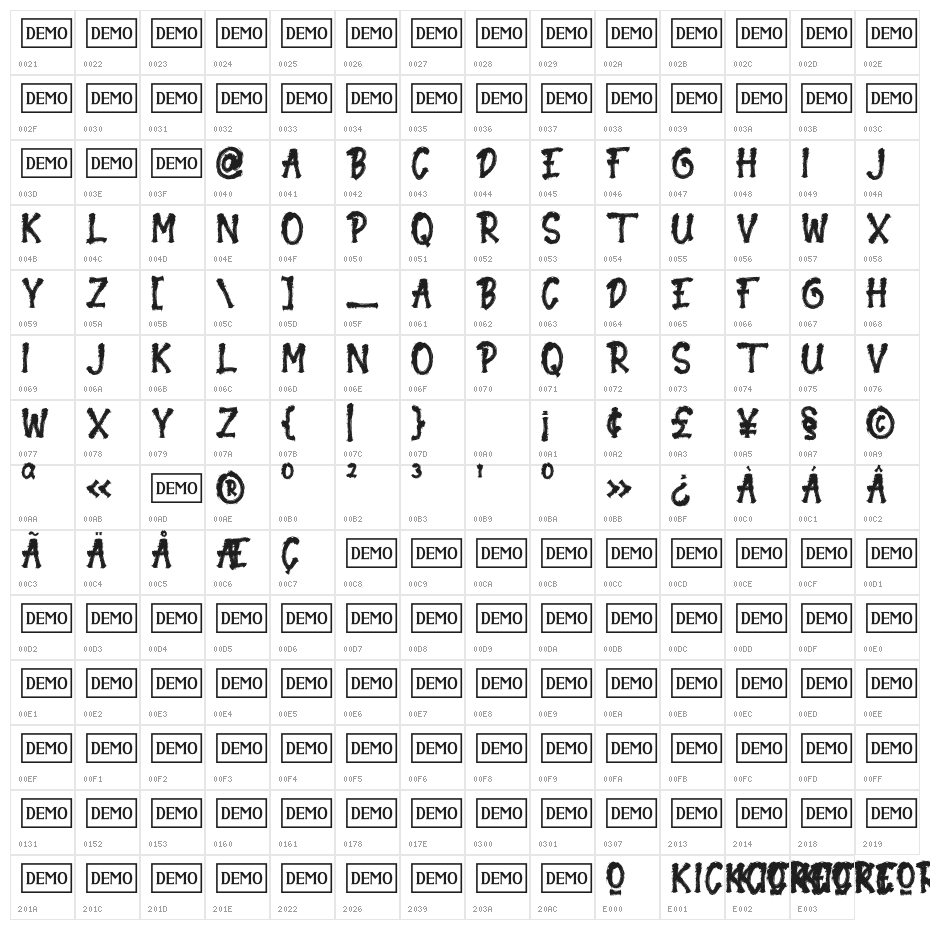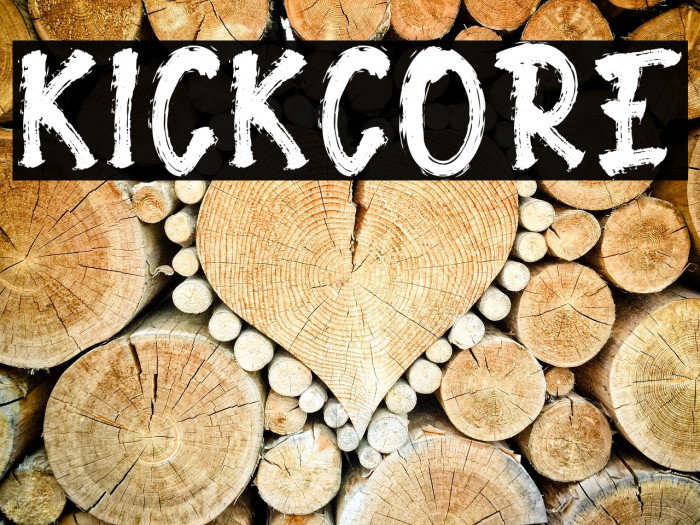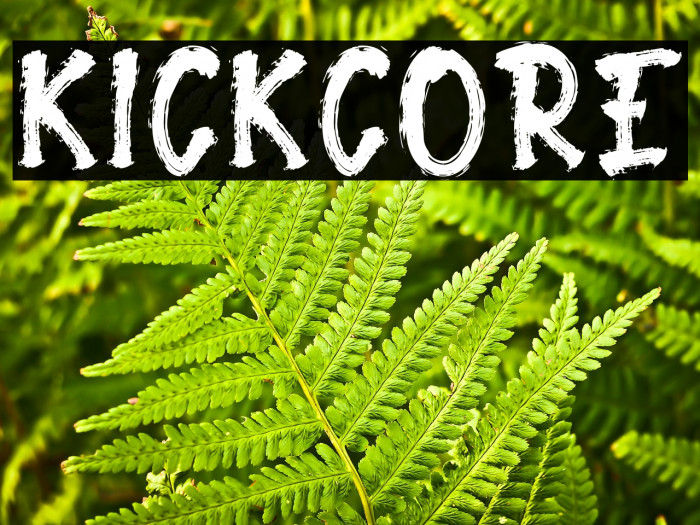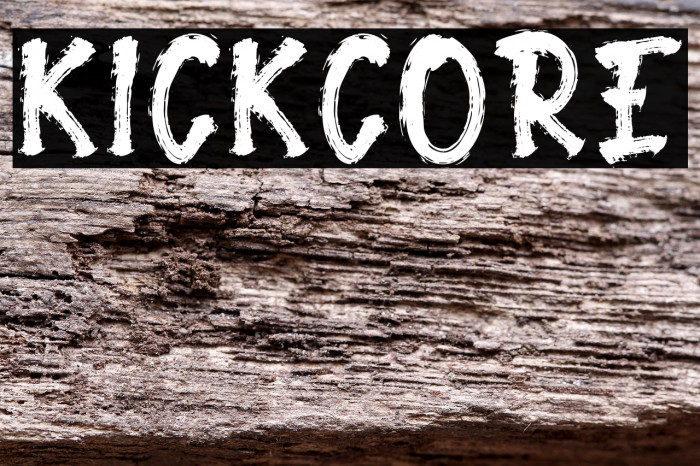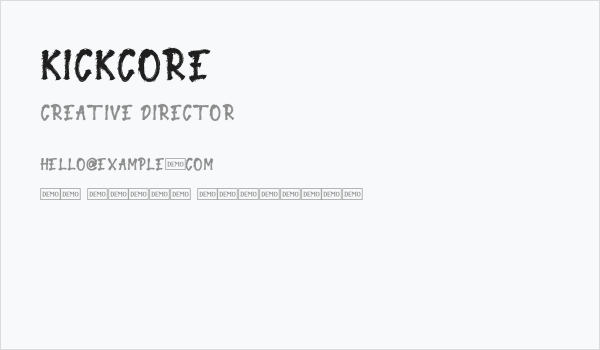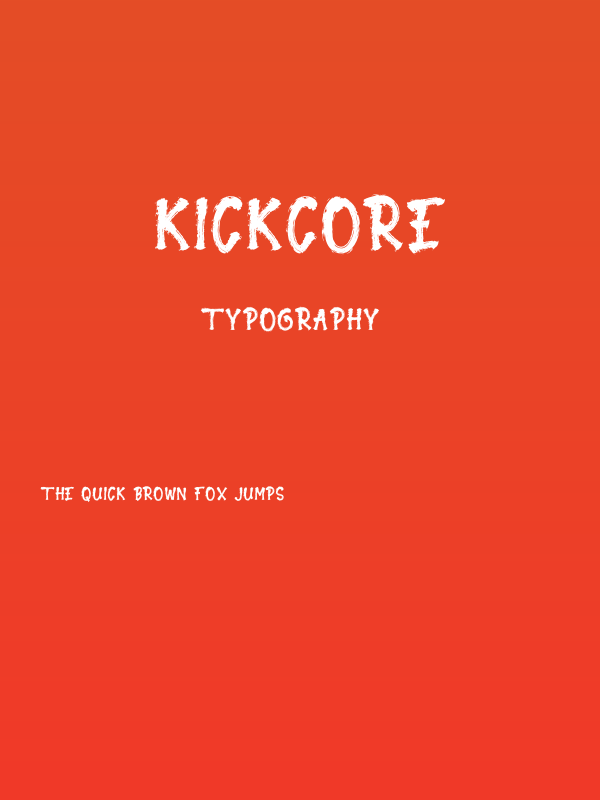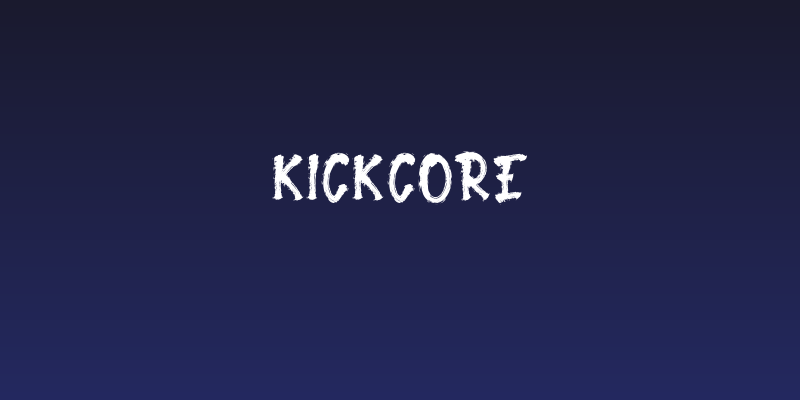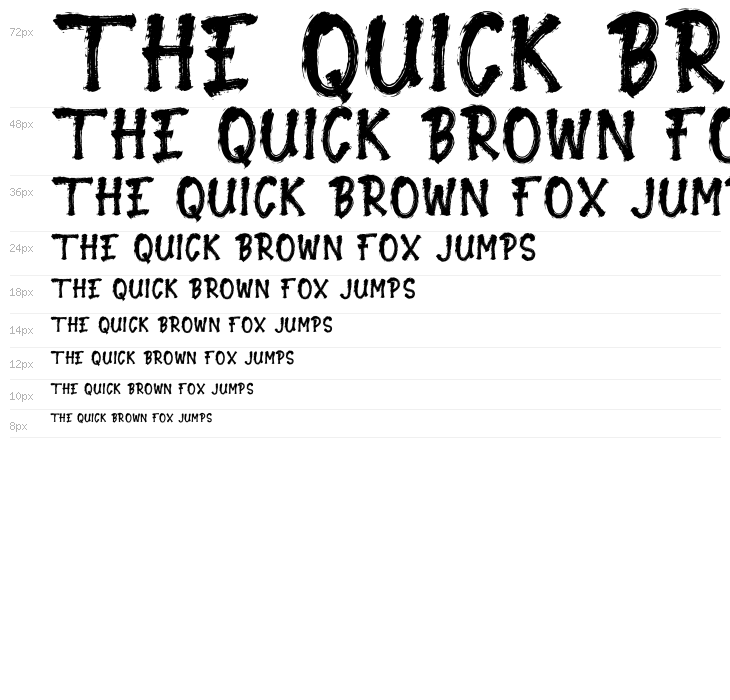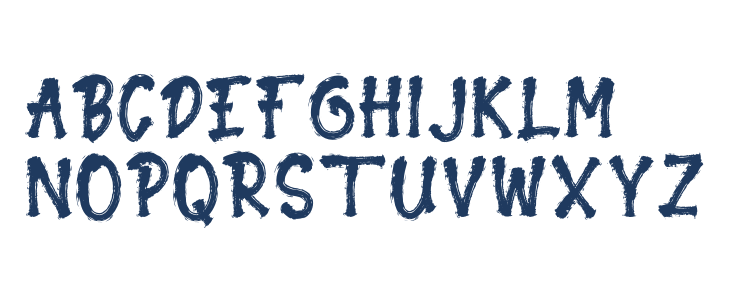
Kickcore Font
Kickcore Description
This font features a bold, brush-like texture that gives it a dynamic and energetic appearance. The strokes are uneven, with a hand-painted feel, creating a sense of movement and spontaneity. The uppercase letters are particularly striking, with each character exhibiting unique brush strokes that add to the overall artistic flair. The font maintains a consistent weight throughout, ensuring readability while still showcasing its distinctive style. Its rough edges and irregular forms make it ideal for projects that require a touch of creativity and boldness.
| Overall Style | Modern, Artistic |
| Proposed Projects | Perfect for posters, album covers, branding materials, and any creative projects that require a bold, artistic touch. |